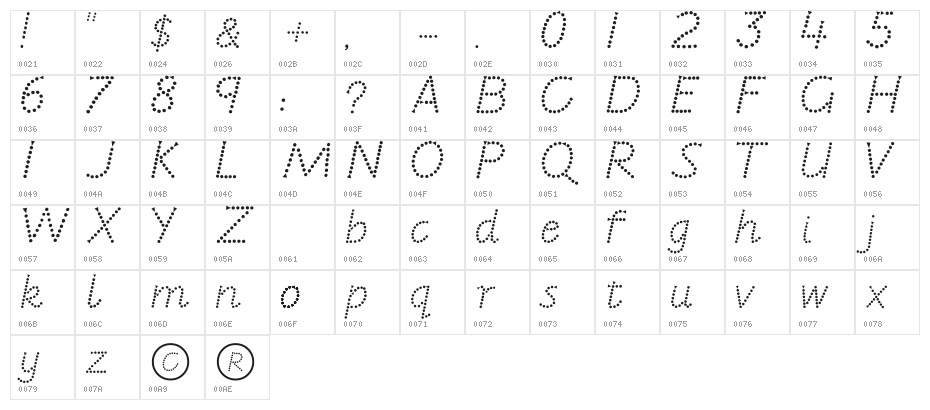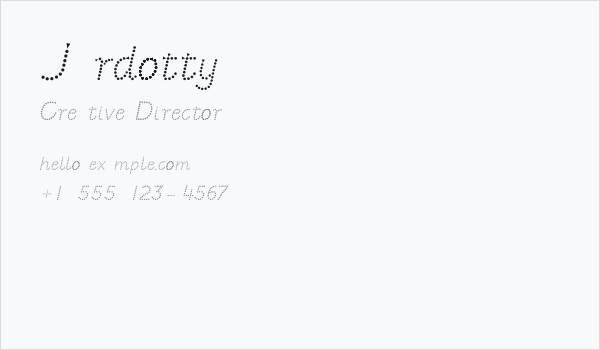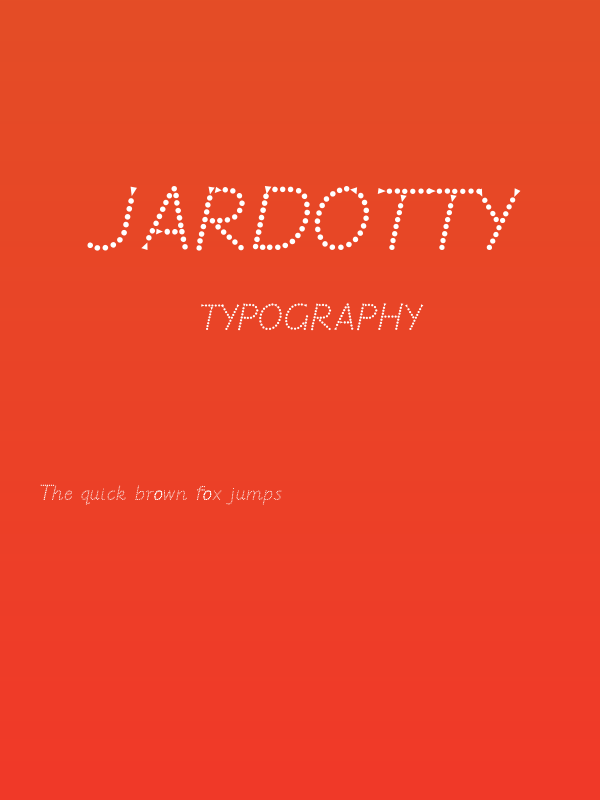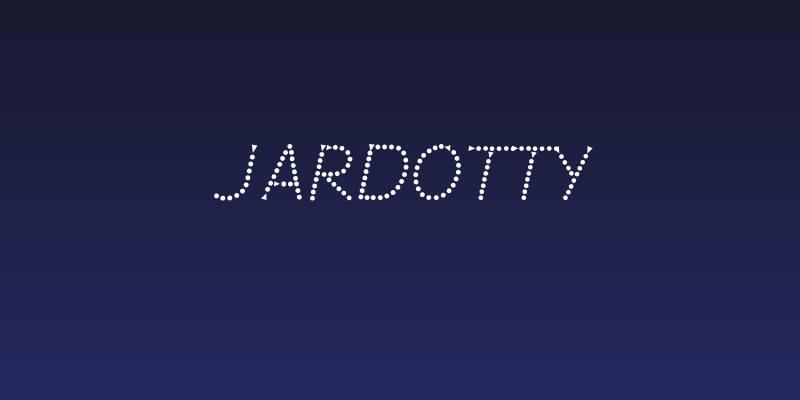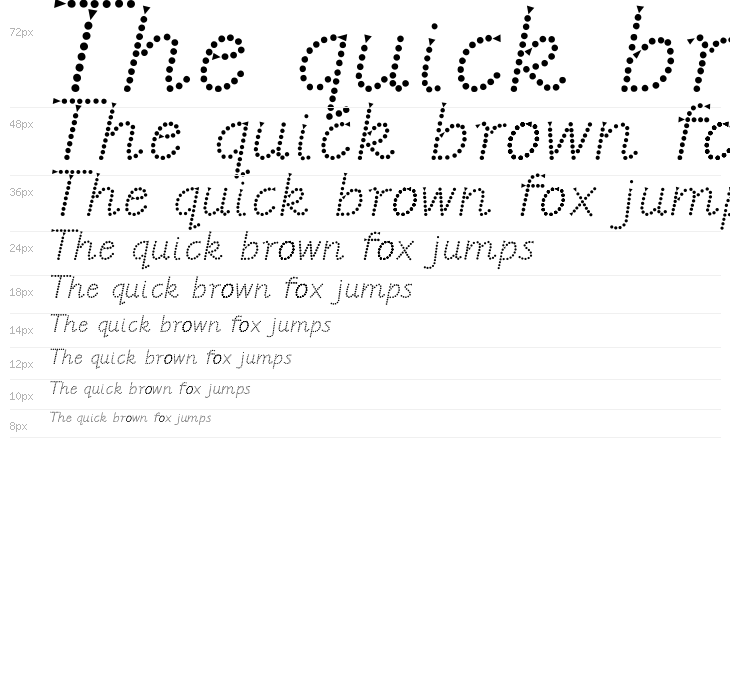
Jardotty Font
| Stile generale | Playful, Whimsical |
| Caso d'uso | Headlines, Logos, Creative projects |
| Progetti proposti | Ideal for children's books, party invitations, playful branding, and creative posters. |